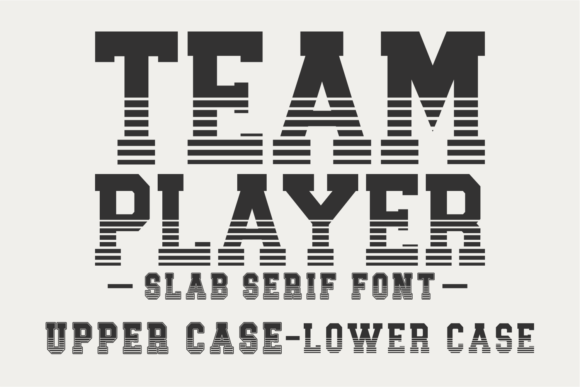
Team Player is a cool and sporty serif font family, perfect for your most creative ideas and projects! The characters look solemn and well-balanced, just right for sporty events, banners, magazines, apparel designs, and so much more.
Team Player Font